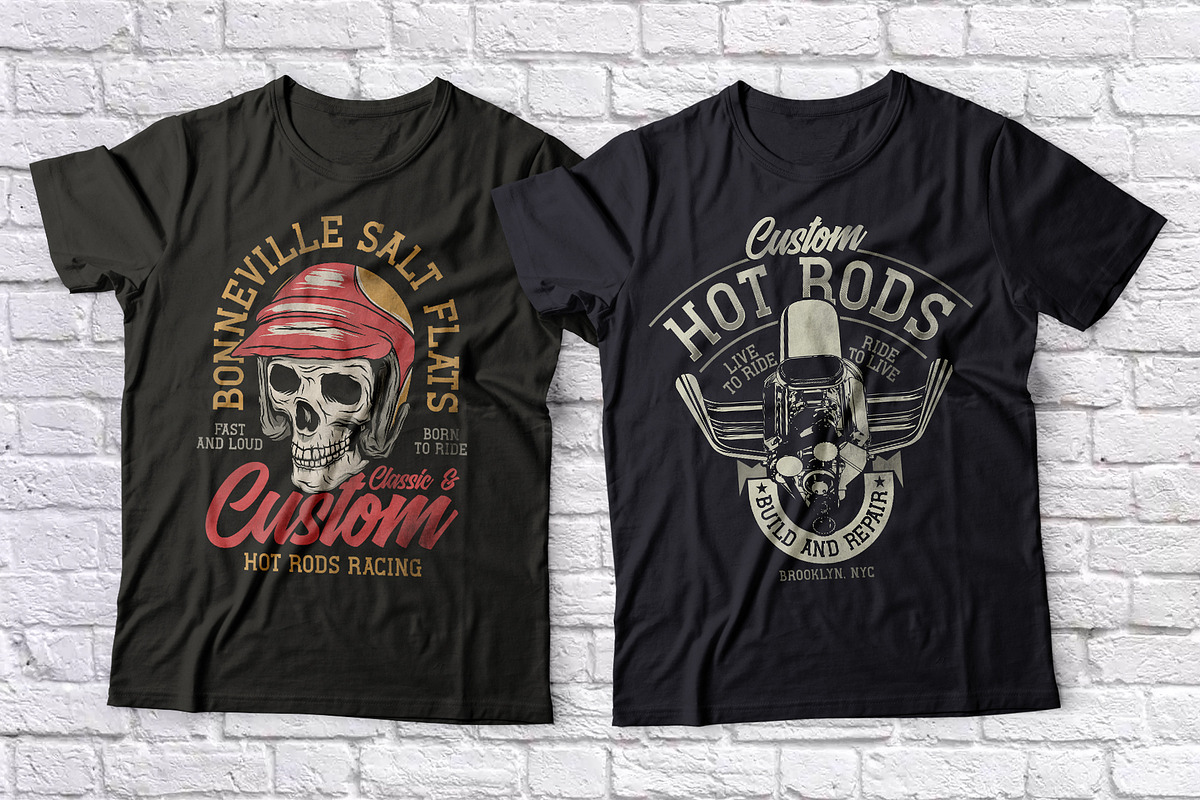
Hot Rod
Introducing a vintage label font named Hot Rod. This strong typeface is perfect for lettering on vintage style posters, t-shirts, greeting cards, logo etc. This set contains also bonus: 10 t-shirt designs on Hot Rod theme.
- A lot of punctuation and multilingual symbols. All set you can see at the preview.